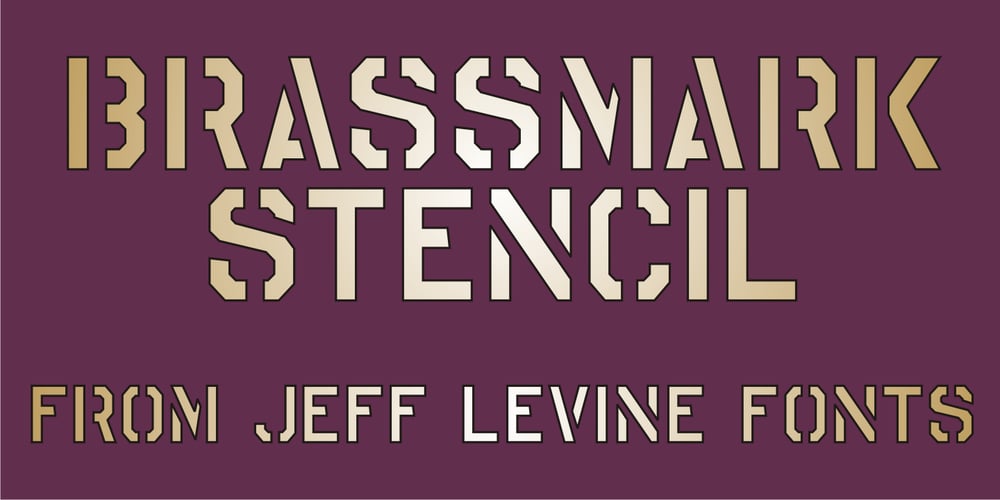
Brassmark Stencil JNL
Brassmark Stencil JNL Font Family was designed by Jeff Levine and published by Jeff Levine. Brassmark Stencil JNL contains 1 styles and family package options. An antique hand-cut brass stencil of the phrase “No Hunting on These Premmises” (with the word “premises” misspelled) was the model for Brassmark Stencil JNL.